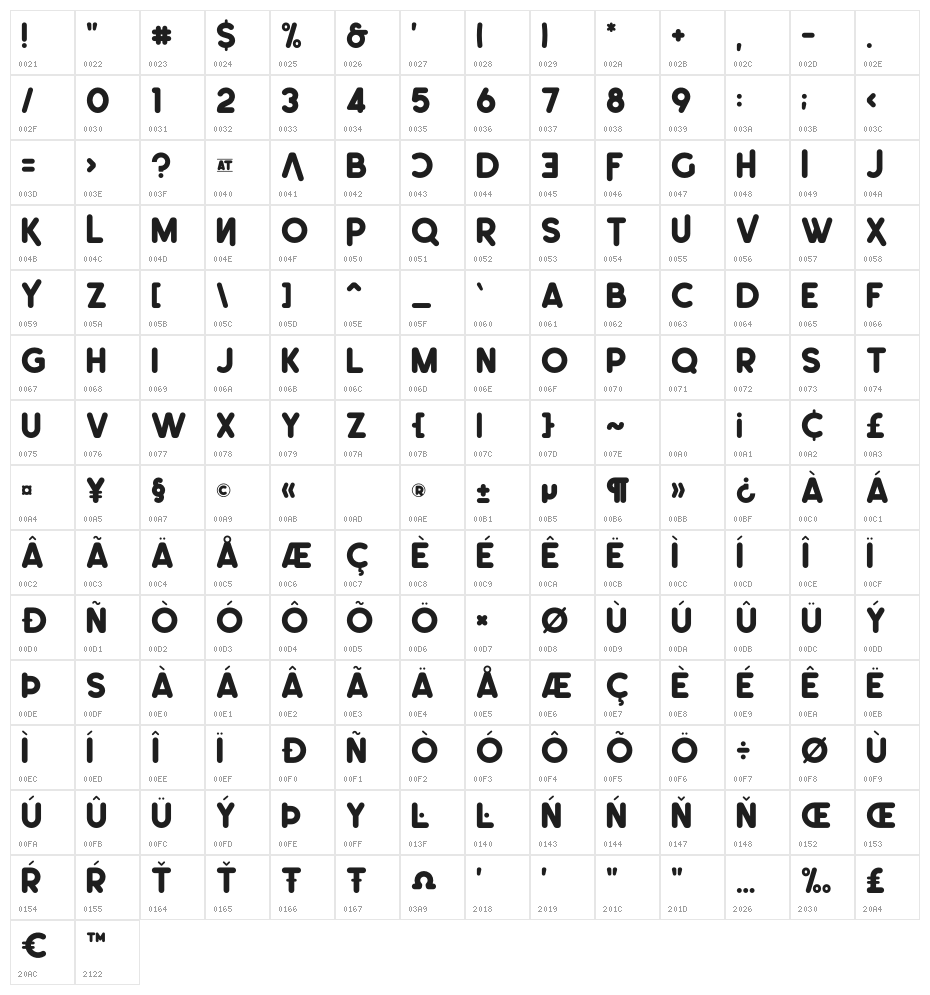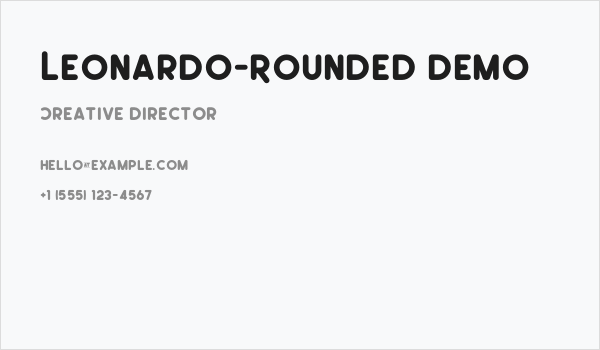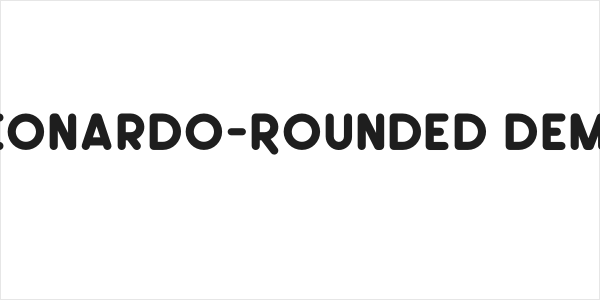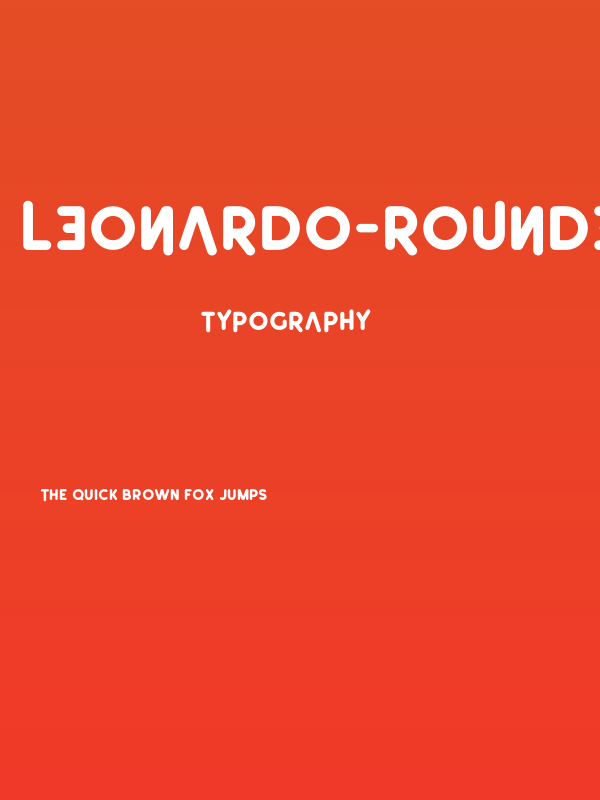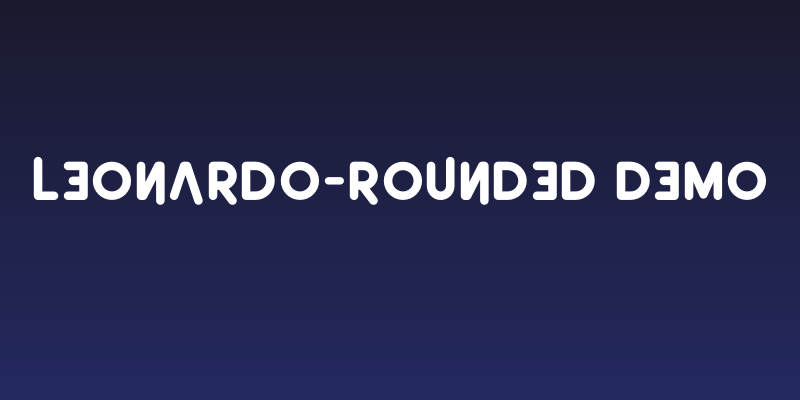
Leonardo-Rounded Demo Font
Leonardo-Rounded Demo Description
This font features a bold and rounded style, characterized by its smooth curves and uniform stroke width. The letters are evenly spaced, providing a clean and modern appearance. The rounded edges give it a friendly and approachable feel, making it suitable for a variety of design applications. The numerals and special characters maintain the same rounded aesthetic, ensuring consistency across all elements. This font's simplicity and clarity make it highly legible, even at smaller sizes.
| Use Case | Headlines, Logos, Signage |
| Proposed Projects | Ideal for branding, signage, children's books, and digital interfaces where a welcoming and contemporary look is desired. |